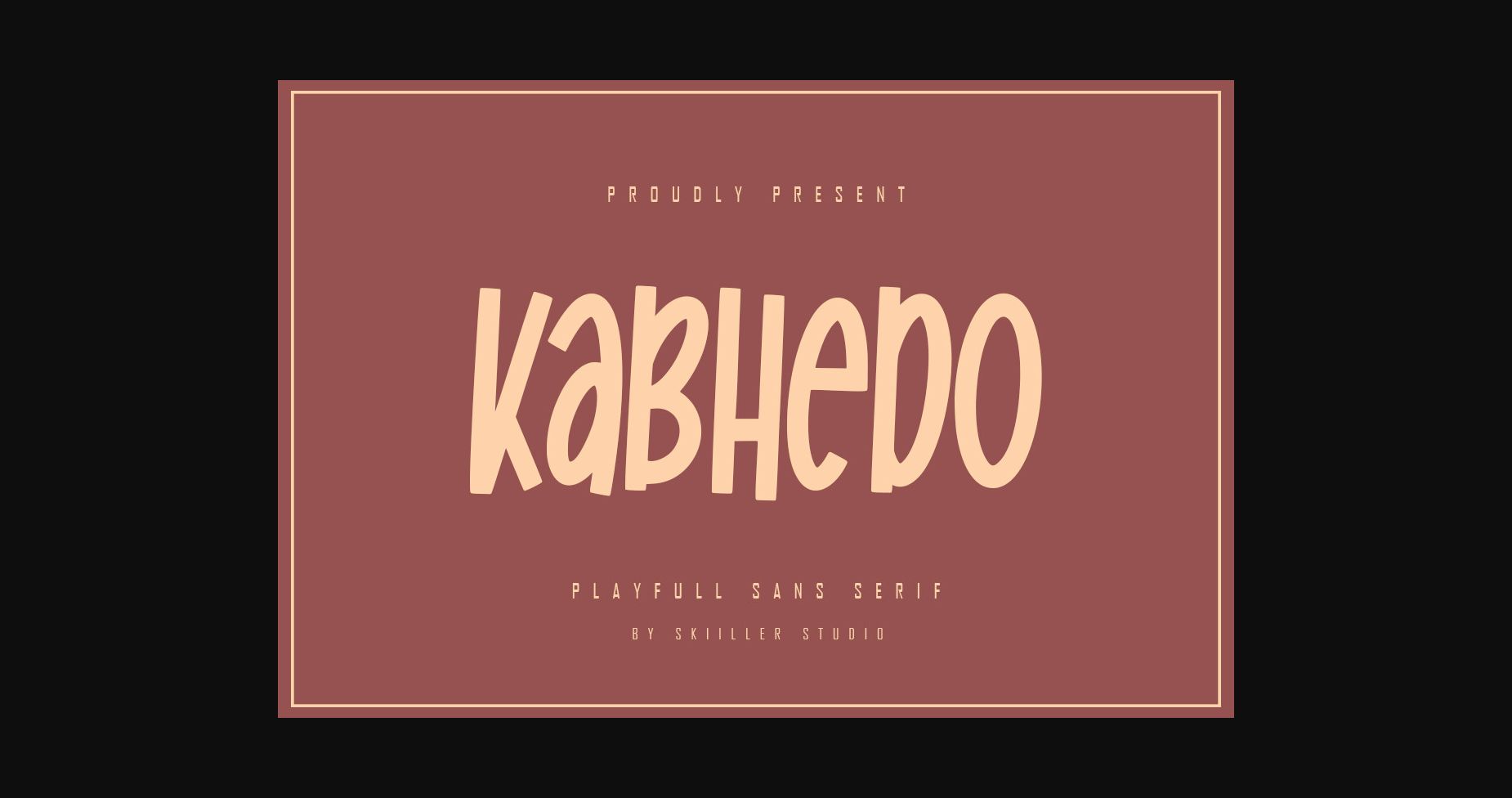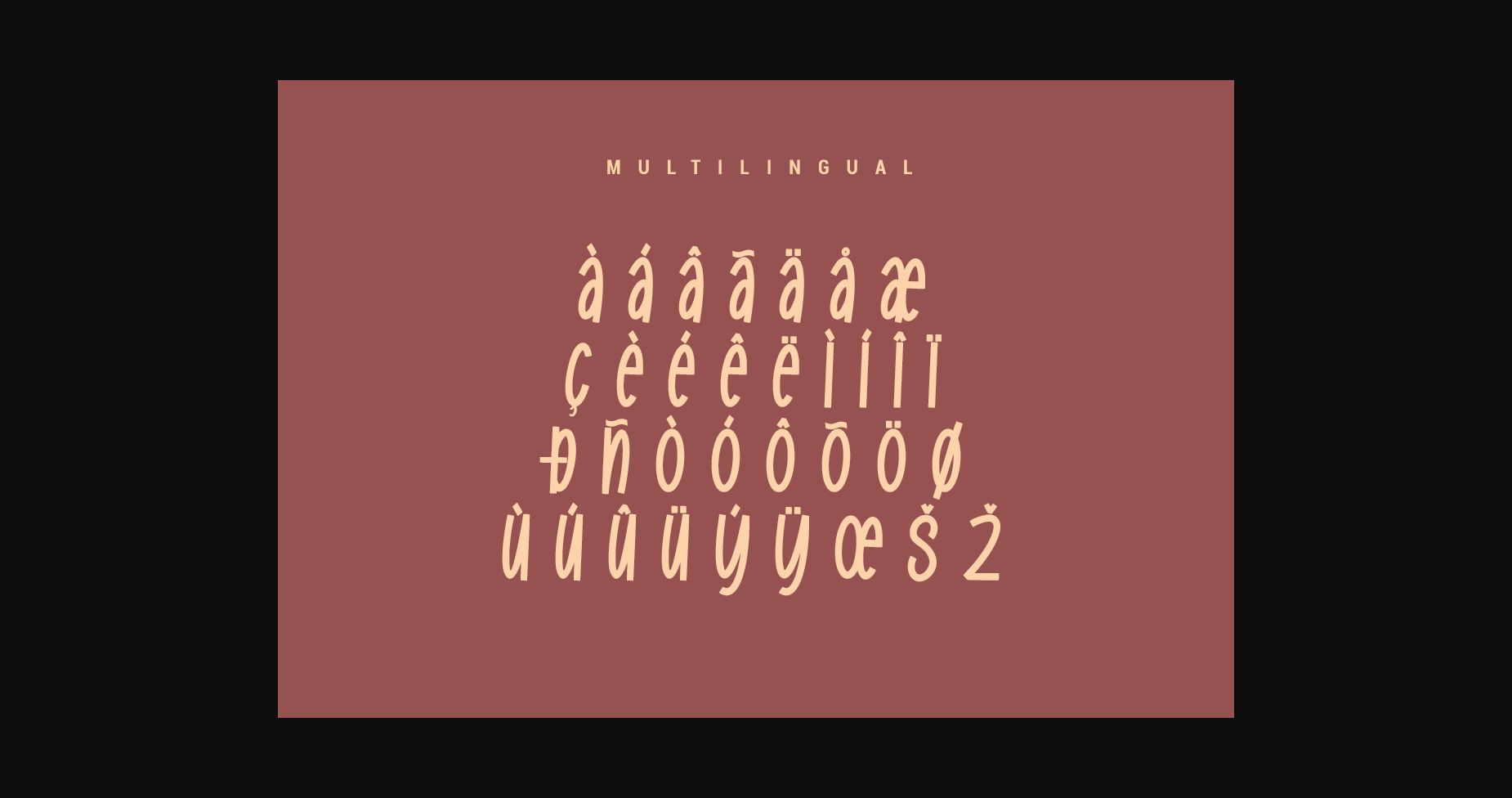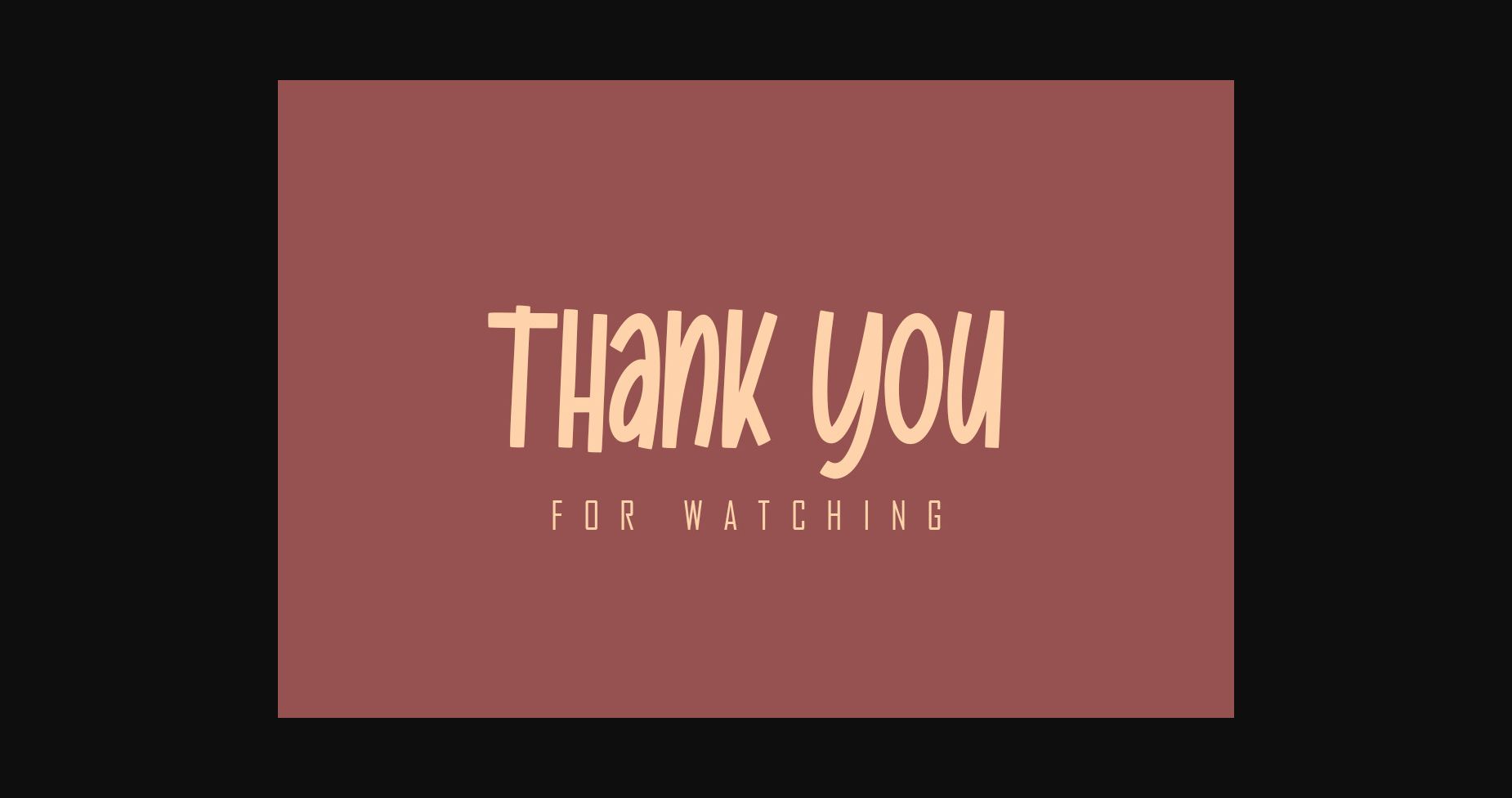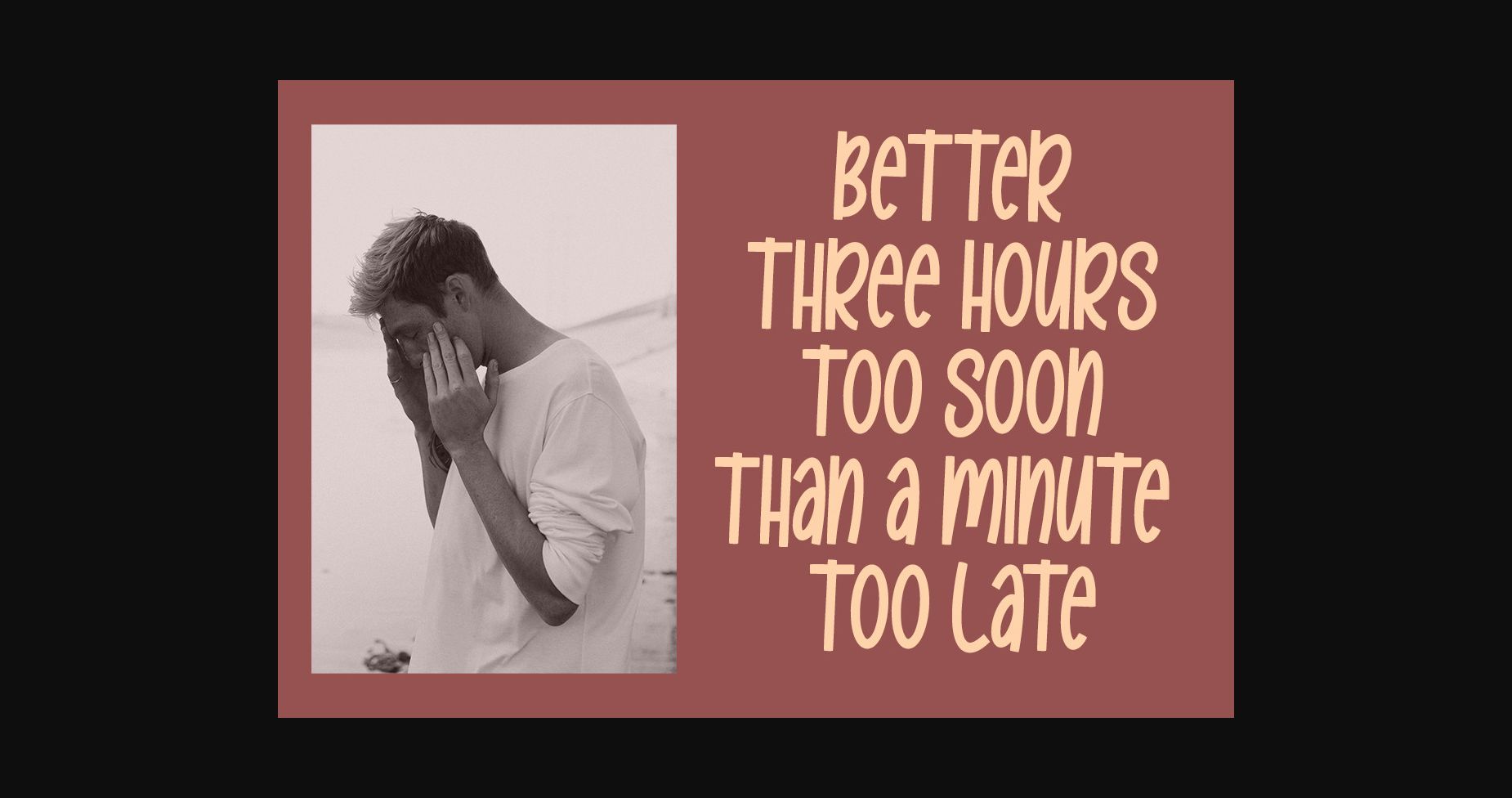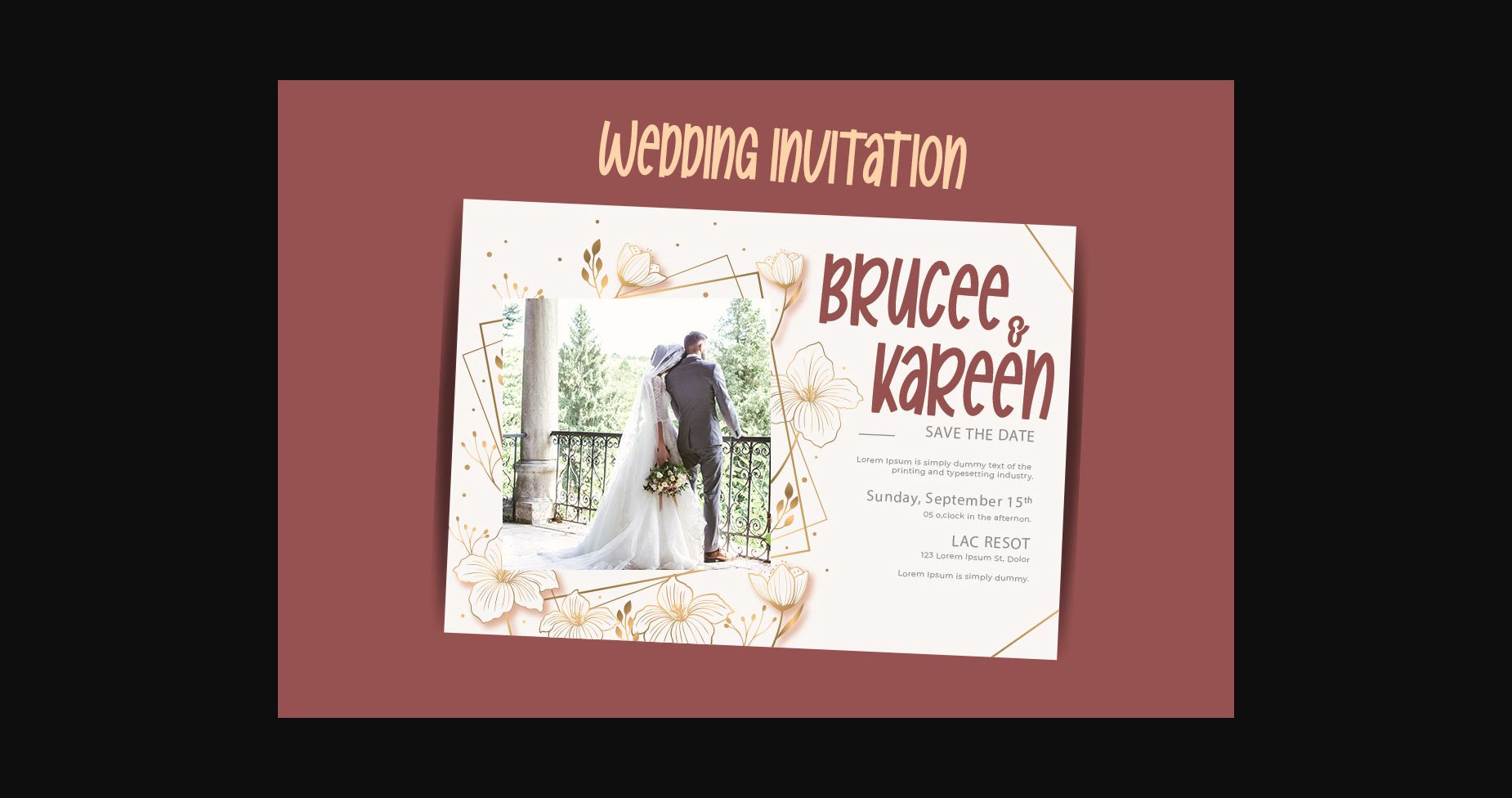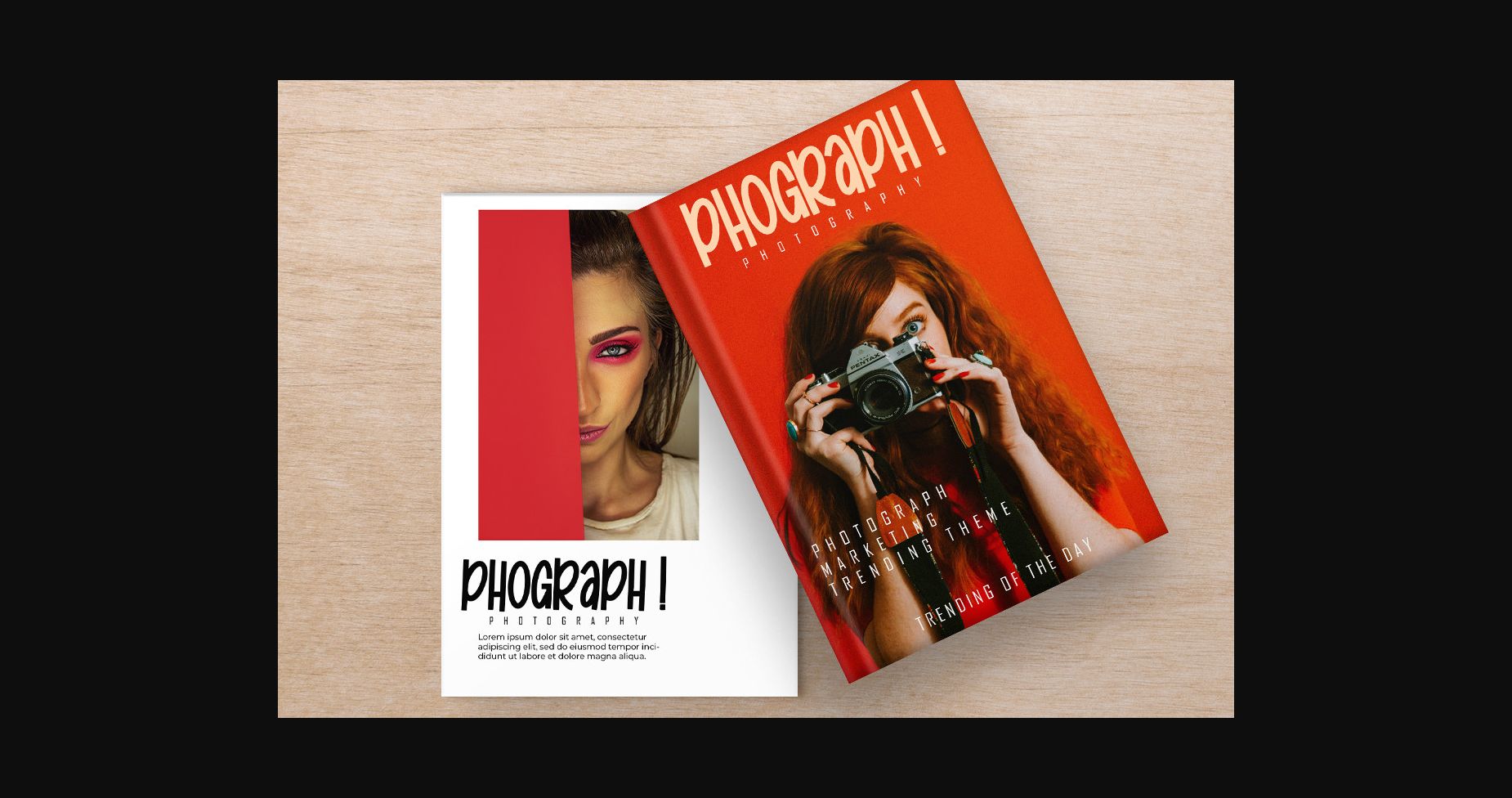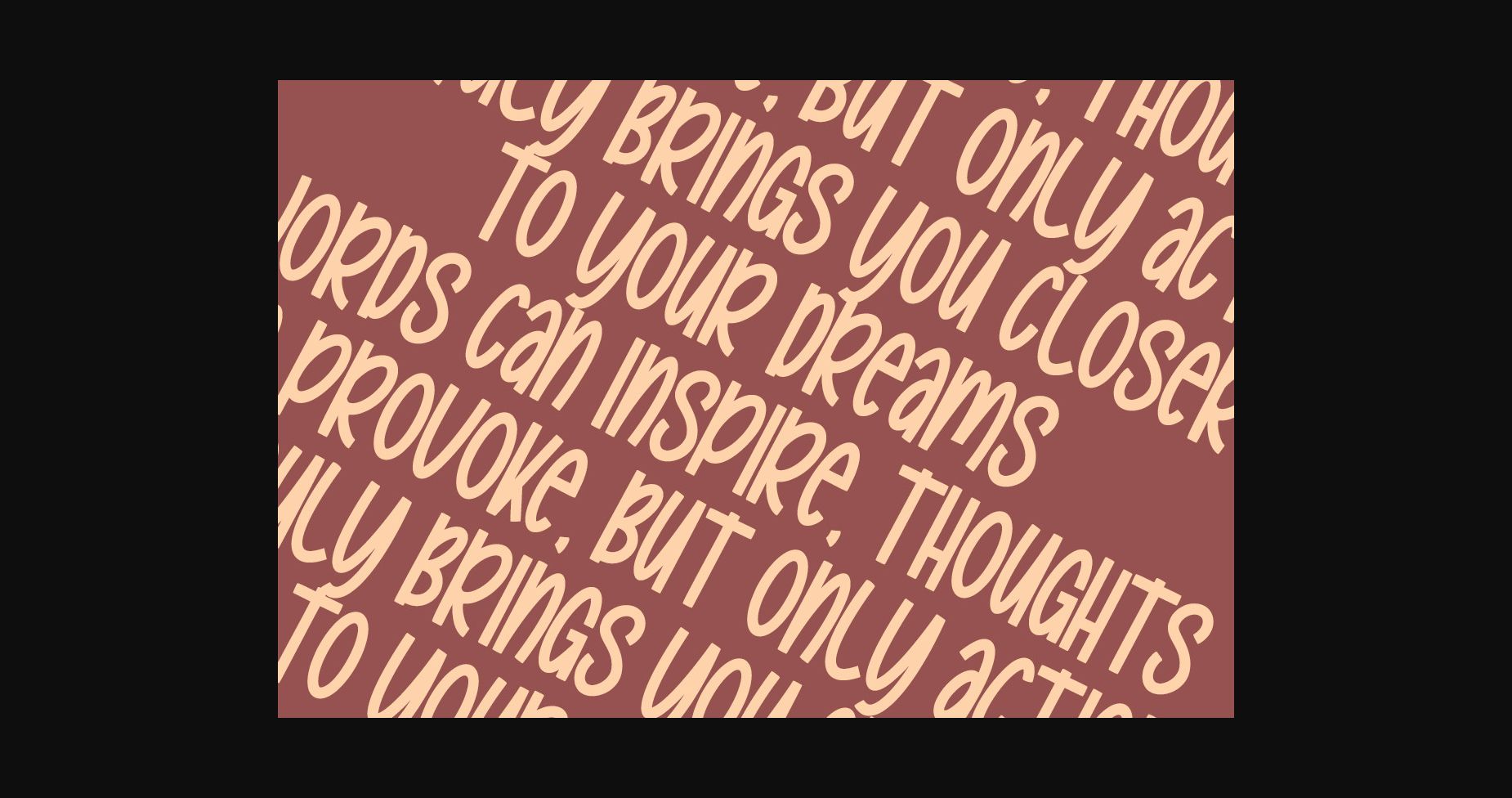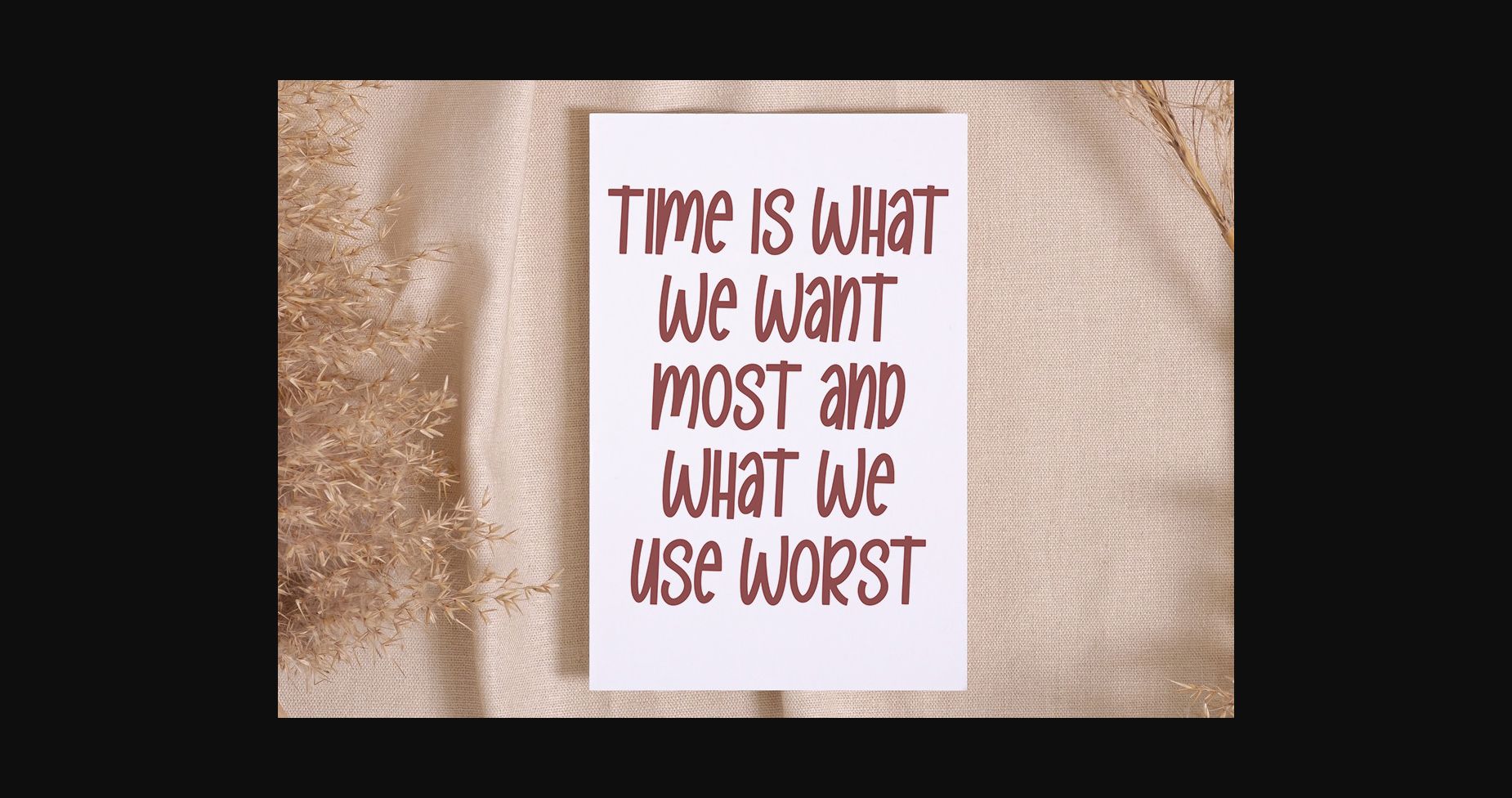
About Kabhedo Font
Kabhedo is a playful, simple and adaptable sans serif font. It can easily be matched to an incredibly large set of projects, so add it to your creative ideas and notice how it makes them stand out!